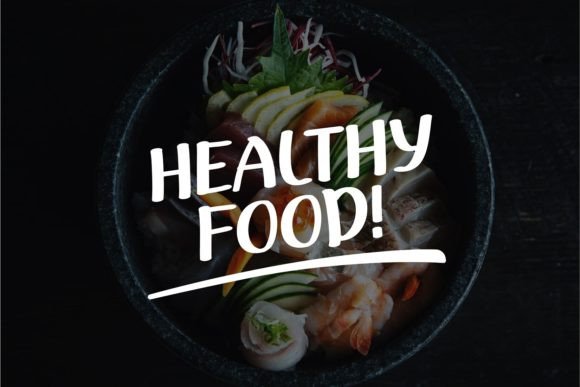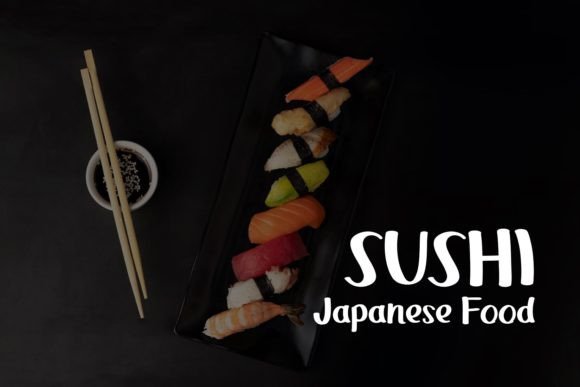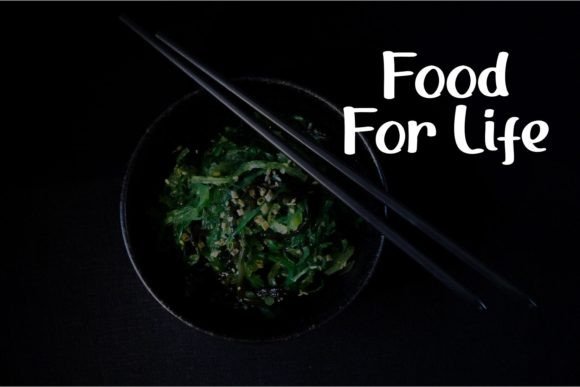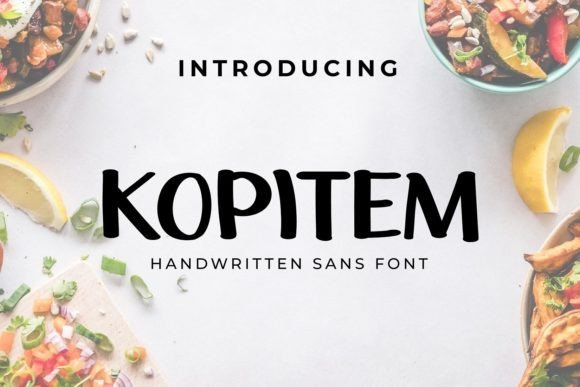
Introduction to Kopitem Font
Introducing Kopitem – Sans Handwritten Font Kopitem is a Sans Handwritten font.
Perfect for branding projects, logos, wedding designs, social media posts, advertisements, product packaging, product designs, labels, photography, watermarks, invitations, stationery, and any projects that need handwriting taste .
Kopitem Font offers exceptional quality and versatility, making it a valuable addition to your design toolkit. Whether you’re creating for personal projects or commercial use, Kopitem Font delivers professional results.